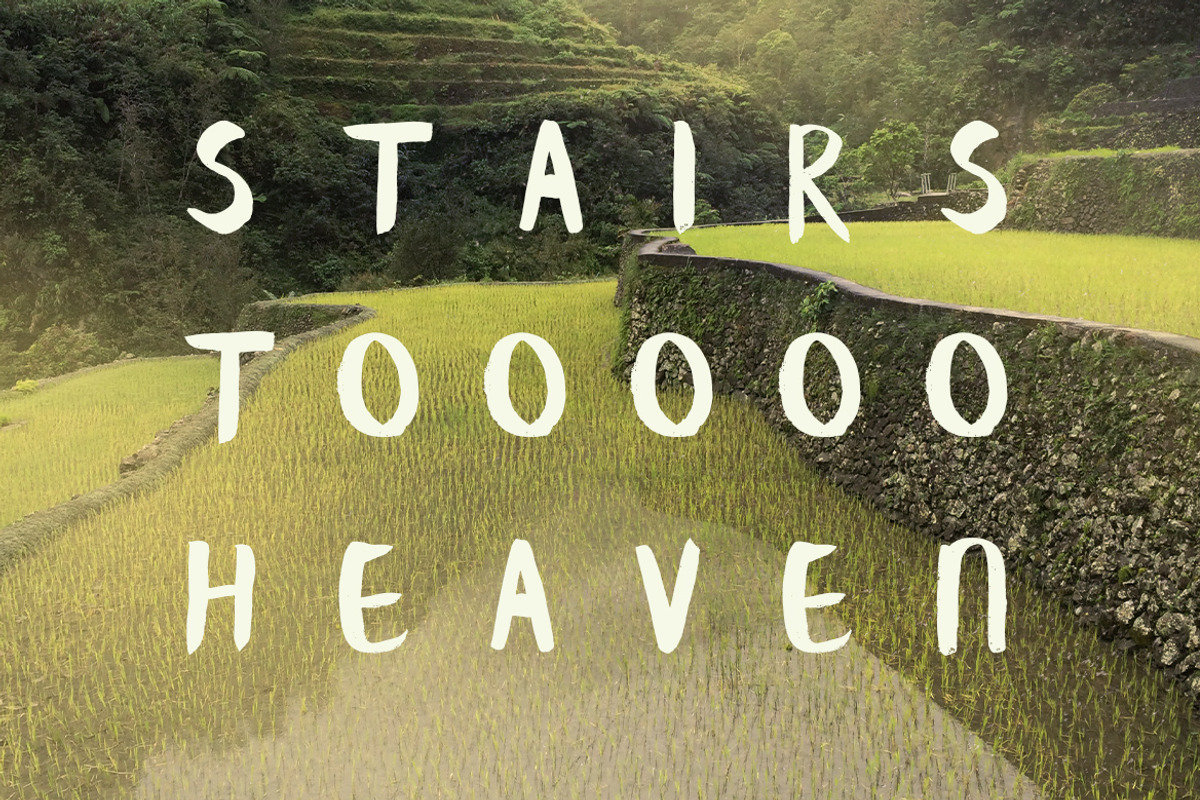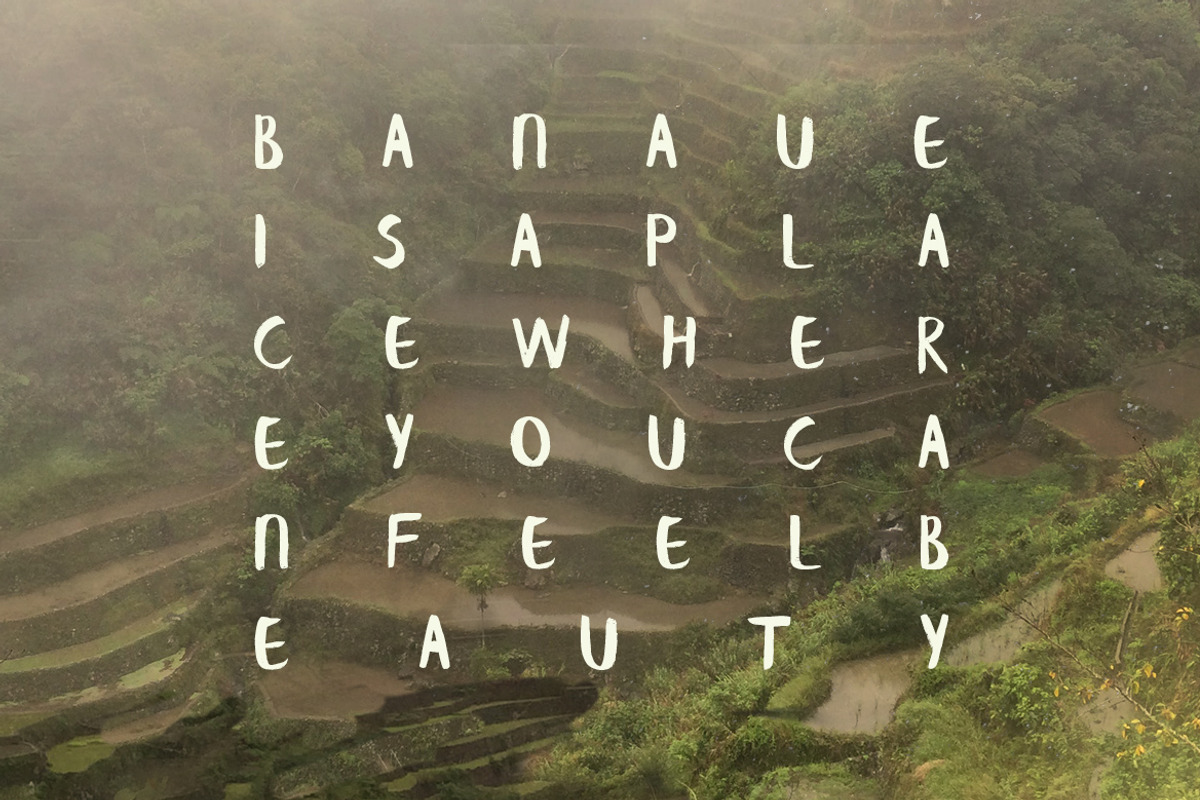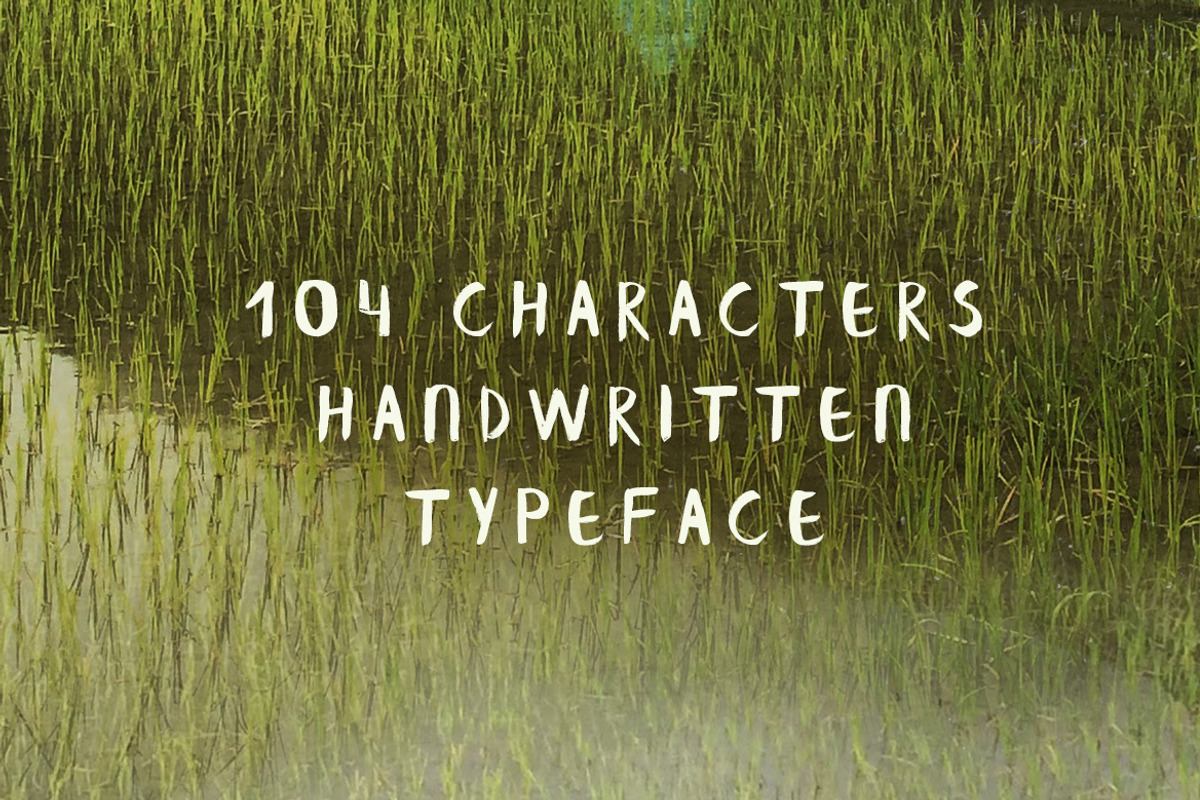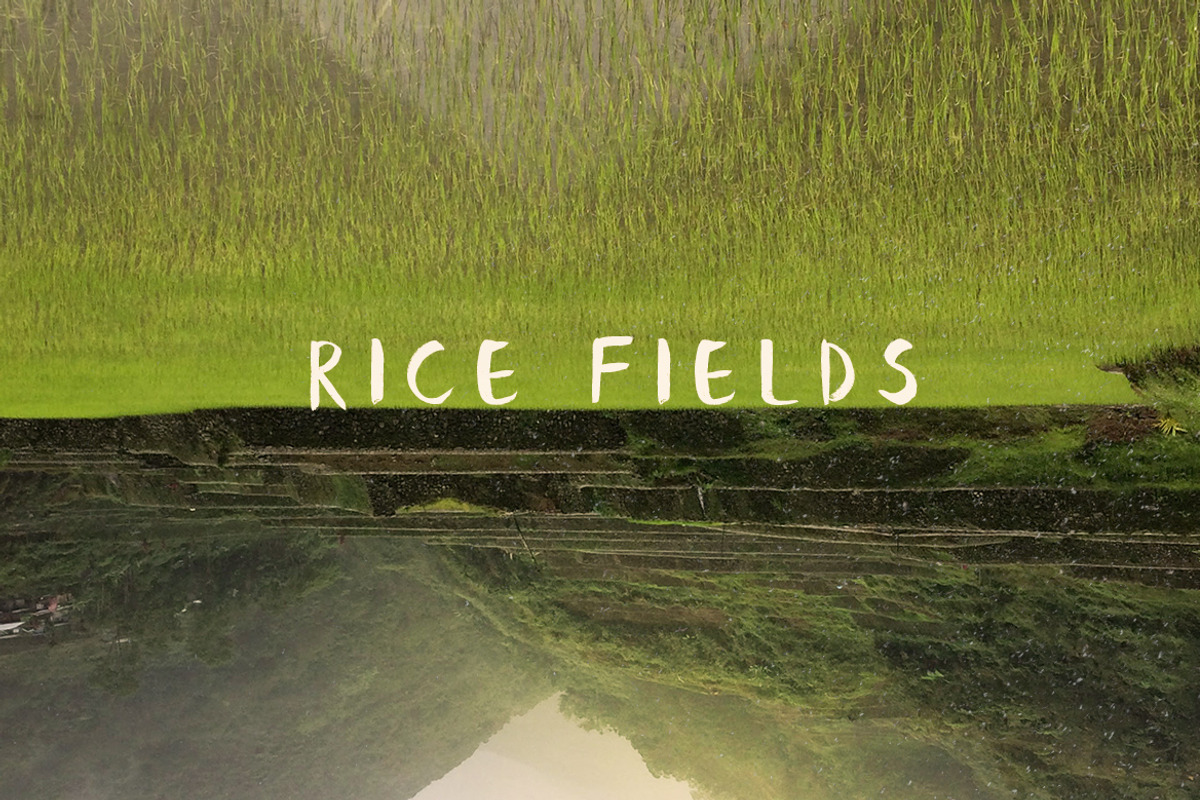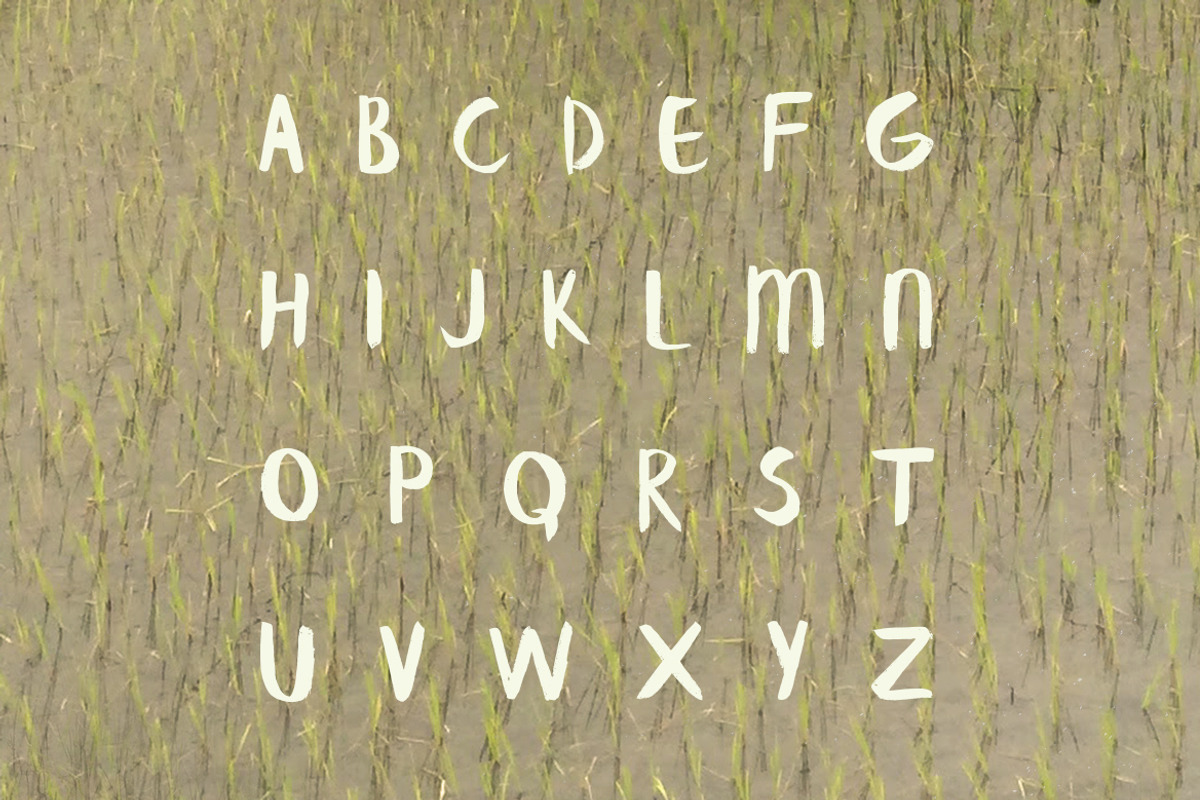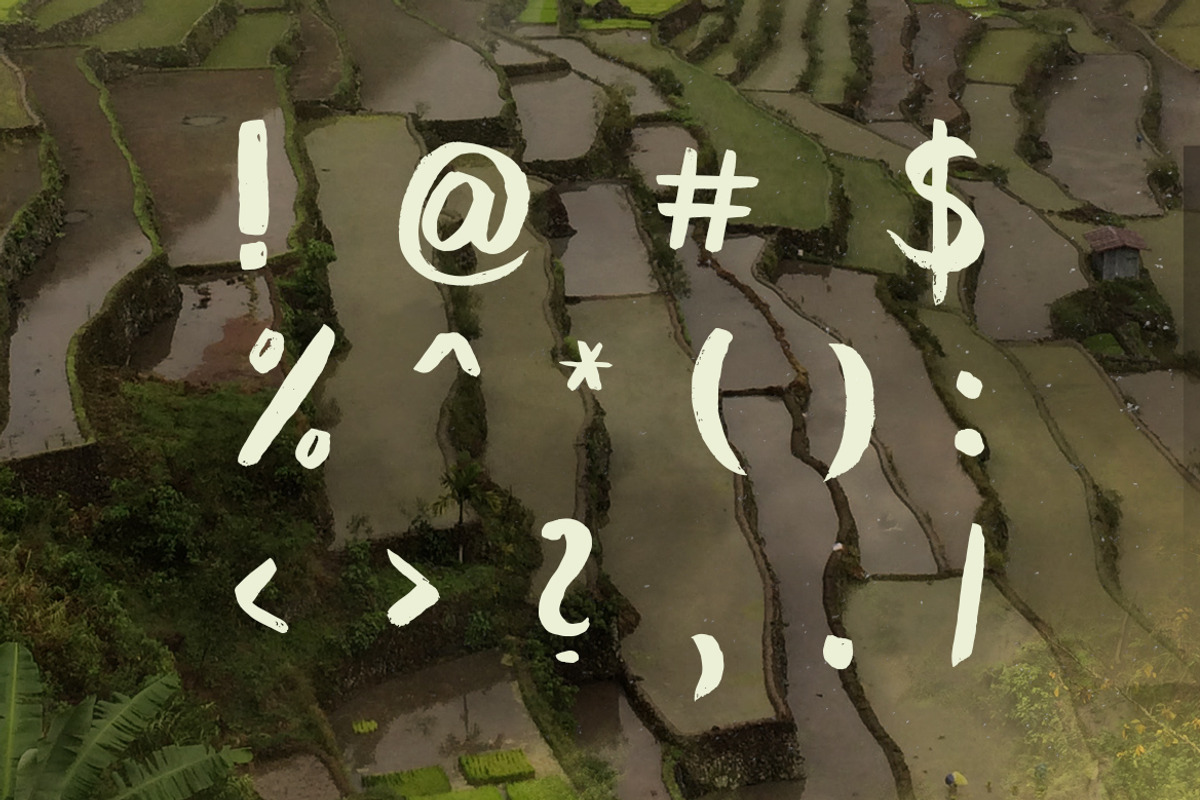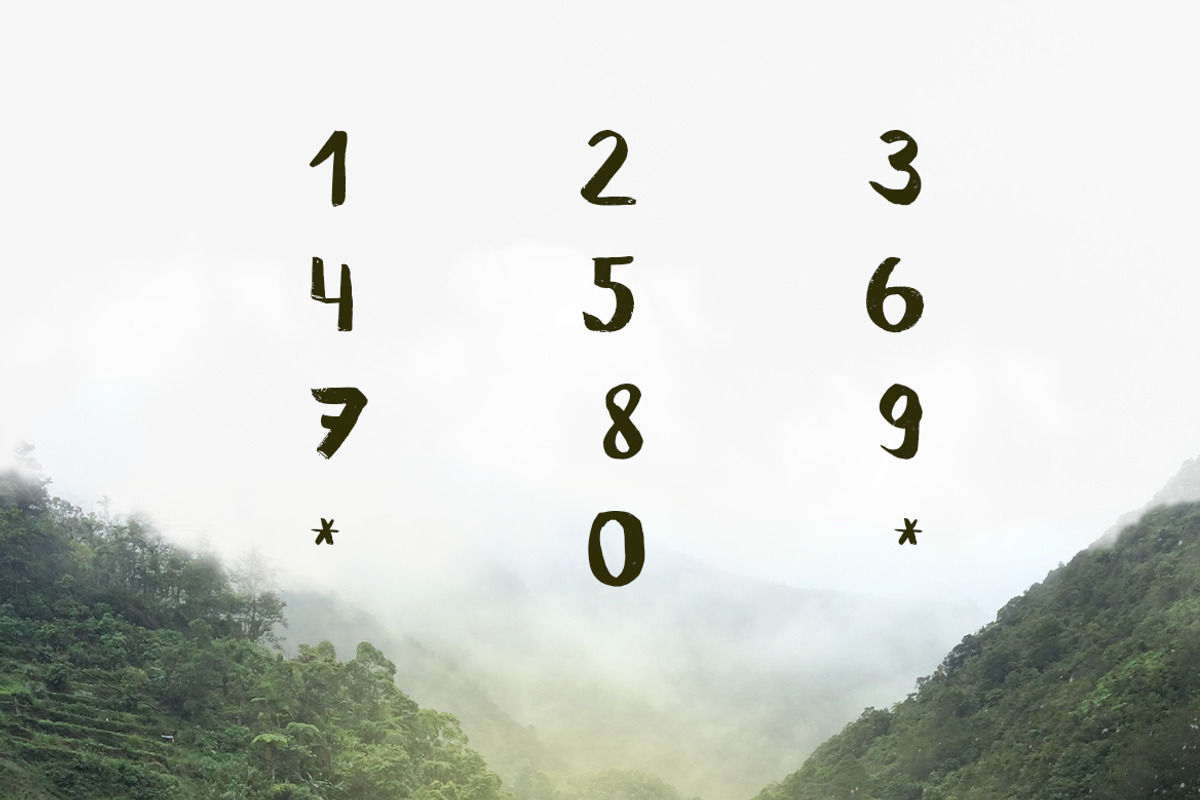
Banaue Handwritten brush font
Banaue Handwritten brush font by Wild Ones is a font selected for branding, posters, packaging, typography.
- The font features 104 characters and has all the basic glyphs.
Banaue Handwritten brush font by Wild Ones fits naturally into Branding, posters, packaging, typography.